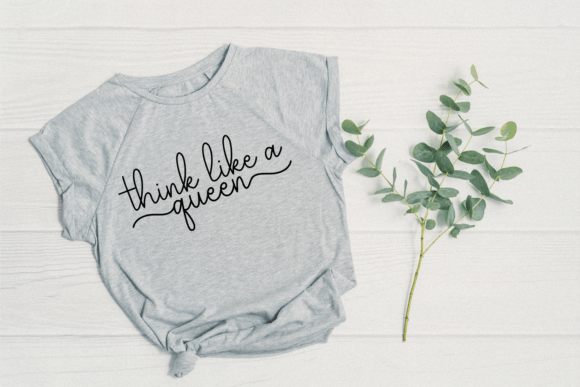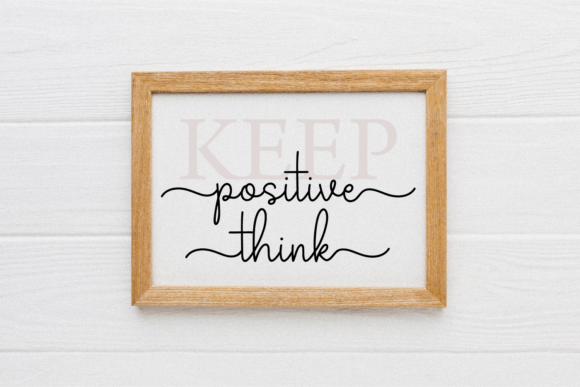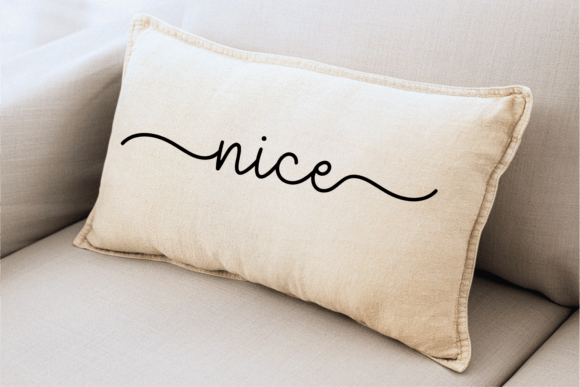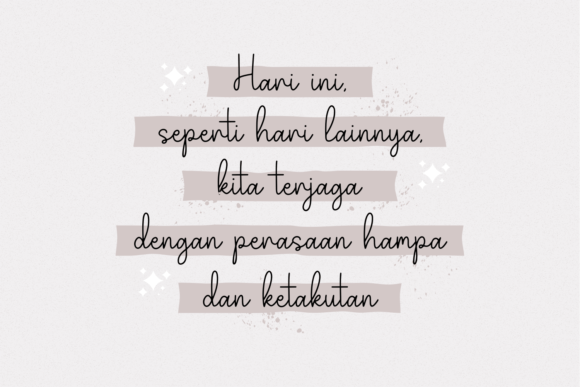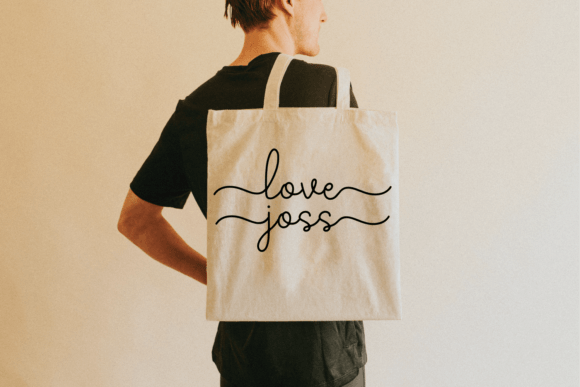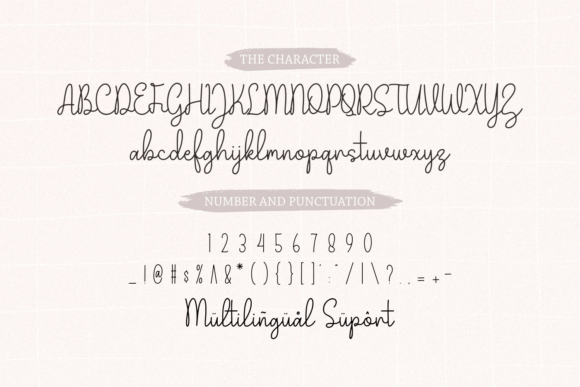
Discover the Elegance of Grey Joy Font: Elevate Your Designs with Timeless Style
Are you on the hunt for a font that exudes elegance and sophistication? Look no further than the Grey Joy Font. This stunning, flowing handwritten font is designed to add a touch of refinement to your favorite projects. With its incredibly distinct and timeless style, Grey Joy is sure to capture the hearts of designers and crafters alike.
The Unique Charm of Grey Joy Font
What sets Grey Joy apart from other fonts is its elegant touch. Each letter is carefully crafted to create a sense of fluidity and movement, making it perfect for designs that require a personal and human touch. Whether you’re working on a branding project, a wedding invitation, or a social media graphic, Grey Joy is sure to make your design shine.
Key Features of Grey Joy Font
- Flowing Handwritten Style: Grey Joy boasts a beautiful, flowing script that adds a touch of sophistication to any design.
- Elegant Touch: With its refined lines and curves, Grey Joy is perfect for designs that require a level of elegance and poise.
- Distinct and Timeless Style: This font’s unique style ensures that your designs will stand out from the crowd and remain timeless for years to come.
- Beginning and Ending Alternates: Grey Joy includes beginning and ending alternates, allowing you to add a touch of personality to your designs and make your branding truly shine.
Why Choose Grey Joy Font?
So, why should you choose Grey Joy Font for your next project? Here are just a few reasons:
- Versatility: Grey Joy is incredibly versatile, making it suitable for a wide range of projects, from branding and advertising to wedding invitations and social media graphics.
- Ease of Use: This font is easy to read and works beautifully in both digital and print formats.
- Unique Style: With its distinct and timeless style, Grey Joy ensures that your designs will stand out from the crowd.
- High-Quality Design: Grey Joy is designed with high-quality craftsmanship in mind, ensuring that your designs look professional and polished.
How to Use Grey Joy Font in Your Designs
Using Grey Joy Font in your designs is easy. Here are a few tips to get you started:
- Pair it with Other Fonts: Grey Joy pairs beautifully with other fonts, making it easy to create stunning contrast and visual interest in your designs.
- Experiment with Colors: This font works beautifully with a range of colors, from bold and bright to soft and pastel.
- Use it for Headings and Titles: Grey Joy is perfect for headings and titles, adding a touch of elegance and sophistication to your designs.
- Add a Personal Touch: With its beginning and ending alternates, Grey Joy allows you to add a personal touch to your designs and make your branding truly shine.
In conclusion, Grey Joy Font is a stunning, elegant font that’s perfect for designers and crafters looking to add a touch of sophistication to their projects. With its flowing handwritten style, elegant touch, and distinct and timeless style, Grey Joy is sure to capture the hearts of anyone who sees it. So why wait? Download Grey Joy Font today and start creating spectacular designs that shine like a diamond!
Whether you’re a seasoned designer or just starting out, Grey Joy Font is a must-have addition to your font collection. Its versatility, ease of use, and high-quality design make it the perfect choice for any project. So go ahead, fall in love with Grey Joy, and elevate your designs to new heights!